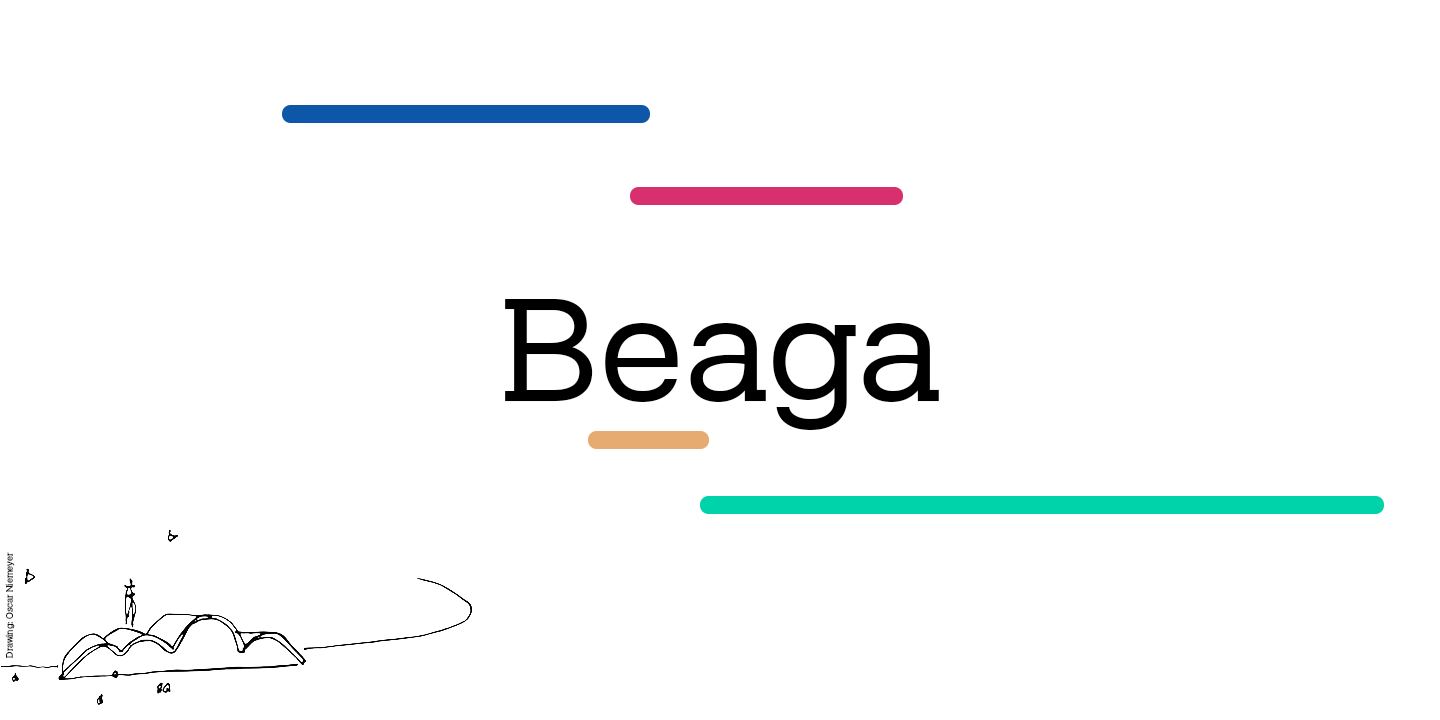
Beaga Font is perfect for Irish cultural center branding, Celtic heritage museum exhibitions, traditional pub signage, Gaelic language educational materials, Irish music venue communications, Celtic craft marketplace promotions, emerald isle tourism materials, Irish heritage celebration graphics, traditional festival communications, and authentic Irish lifestyle marketing campaigns.
What makes Beaga Font so exciting is its extraordinary ability to capture the intimate charm and enduring strength of Irish heritage through delicately crafted letterforms that seem whispered by the ancient winds that sweep across emerald hills and blessed with the kind of cultural authenticity that flows through generations of Irish families who have preserved their language, music, and storytelling traditions despite centuries of challenge and change. This font embodies the essence of Irish cultural resilience and intimate community bonds, featuring gently structured characters that appear designed to honor the precious nature of small things - the beaga - that form the foundation of Irish culture: quiet conversations, shared songs, family stories, and the simple moments that bind communities together. The tenderly crafted letter shapes create an atmosphere of cultural intimacy and heritage preservation, making every word feel like it carries the warmth of an Irish fireside and the promise of discovering the profound beauty found in the careful preservation of cultural treasures that might seem small but contain the entire soul of a people.
The Beaga Font family includes Light, Regular, Medium, Bold, and Traditional variations, along with Celtic symbols and Irish cultural decorative elements. Each style maintains the font's distinctive intimate character while offering versatility for different heritage applications, from gentle Gaelic poetry text to proud celebration headlines that announce the enduring vitality of Irish culture and the importance of preserving cultural traditions.
This heartwarming typeface brings authentic Irish cultural aesthetics to contemporary design projects. The Beaga Font Free Download offers designers an invaluable resource for creating memorable brand identities that communicate cultural intimacy, Irish authenticity, and heritage preservation. Whether you're developing Irish cultural institution branding, designing heritage celebration materials, or creating Gaelic community communications, this font delivers unmatched Irish charm and cultural credibility.
The lovingly crafted letterforms in Beaga Font feature gentle curves and intimate proportions that mirror the natural rhythm of spoken Gaelic and the careful attention that Irish communities give to preserving the small but essential elements of their culture that connect each generation to their ancestors. Each character has been designed to maintain perfect readability while expressing the cultural tenderness and community pride that define authentic Irish heritage preservation. The font's distinctive personality makes it ideal for applications requiring genuine Irish authority and Celtic cultural appeal.
Irish cultural and community professionals appreciate how Beaga Font effortlessly communicates heritage authenticity, cultural intimacy, and Irish excellence while appealing to people of Irish descent and cultural enthusiasts seeking genuine experiences that honor both the profound depth and intimate charm of Irish traditions. The comprehensive character set includes Celtic symbols, Irish decorations, Gaelic elements, and extensive language support, ensuring authentic compatibility while preserving its distinctive beaga identity. This makes it an invaluable resource for Irish cultural centers, Celtic organizations, heritage societies, and any establishment seeking typography that embodies the fundamental Irish values of community, tradition, and the understanding that the most important aspects of culture are often the smallest ones - the beaga - that require the most careful protection and loving preservation because they contain the essence of what makes Irish culture so enduring, beautiful, and capable of creating strong communities wherever Irish people gather to share their stories, songs, and the quiet wisdom that reminds us that true wealth lies not in grand gestures but in the faithful preservation of the small treasures that connect us to our ancestors and bind us to future generations who will inherit the beautiful responsibility of keeping Irish culture alive through their own loving attention to the beaga that make life meaningful.